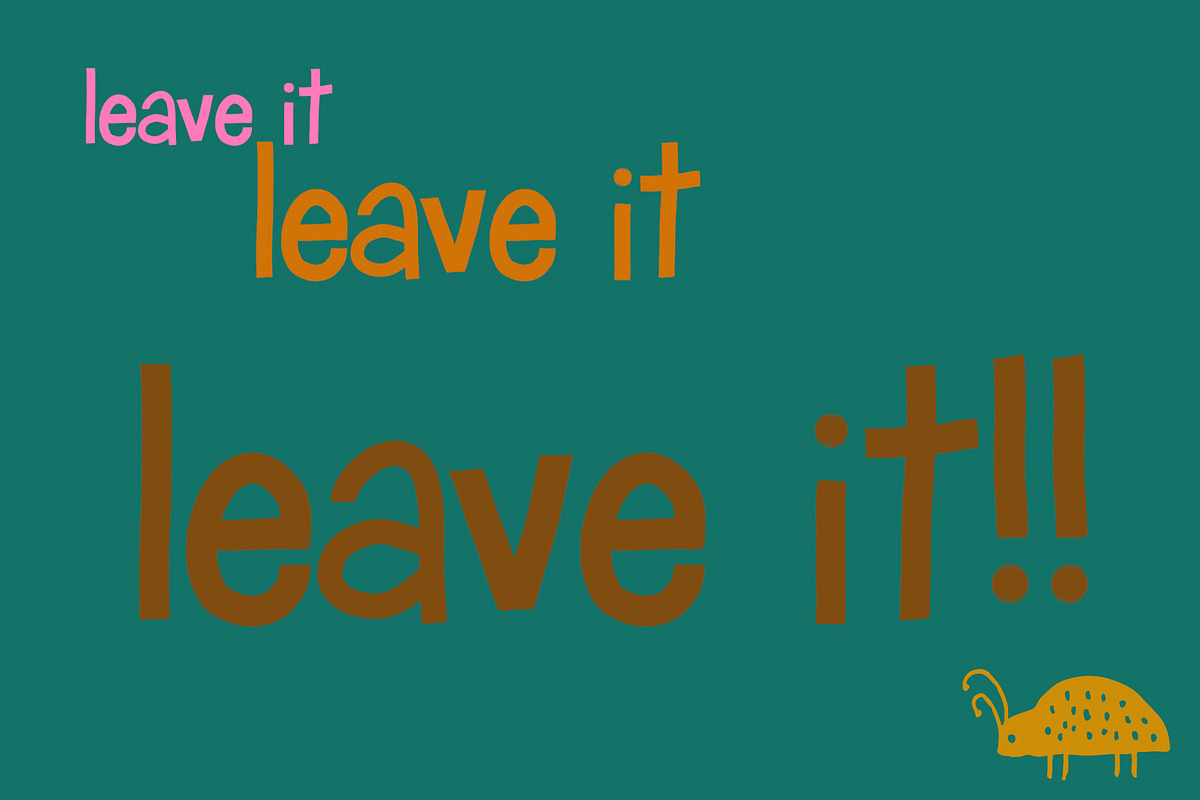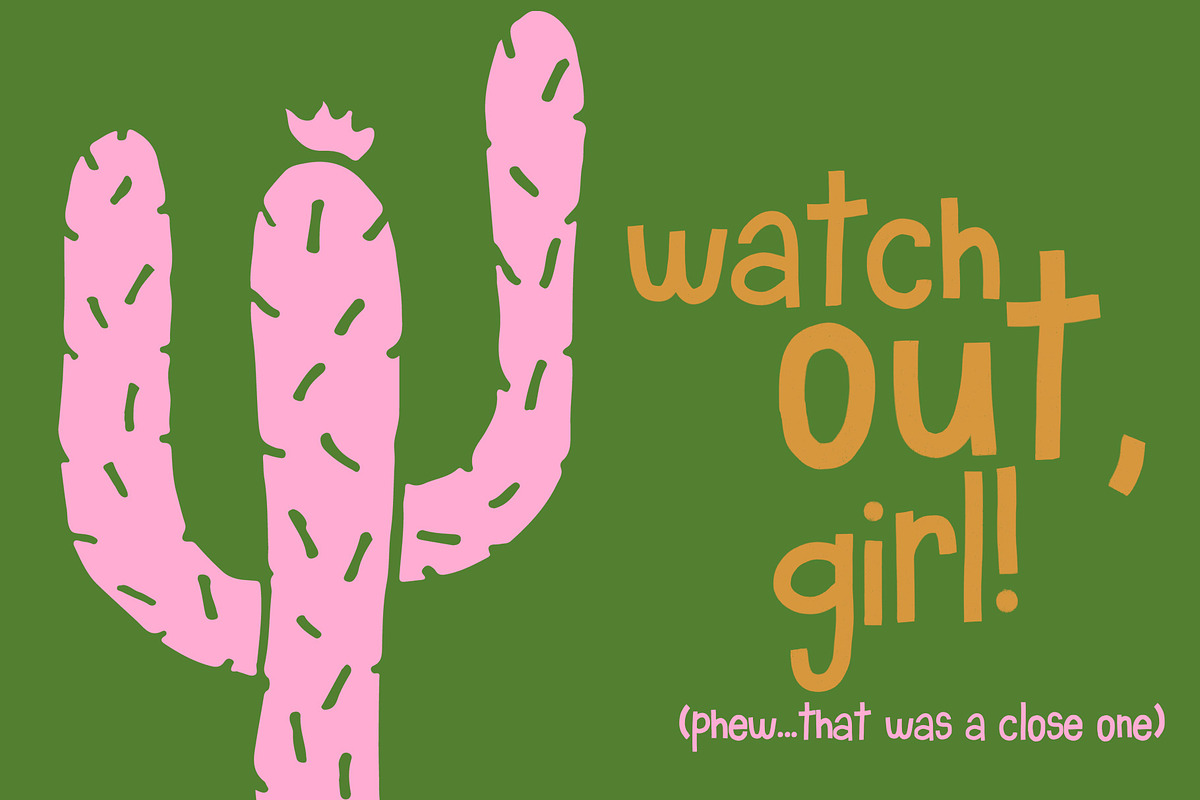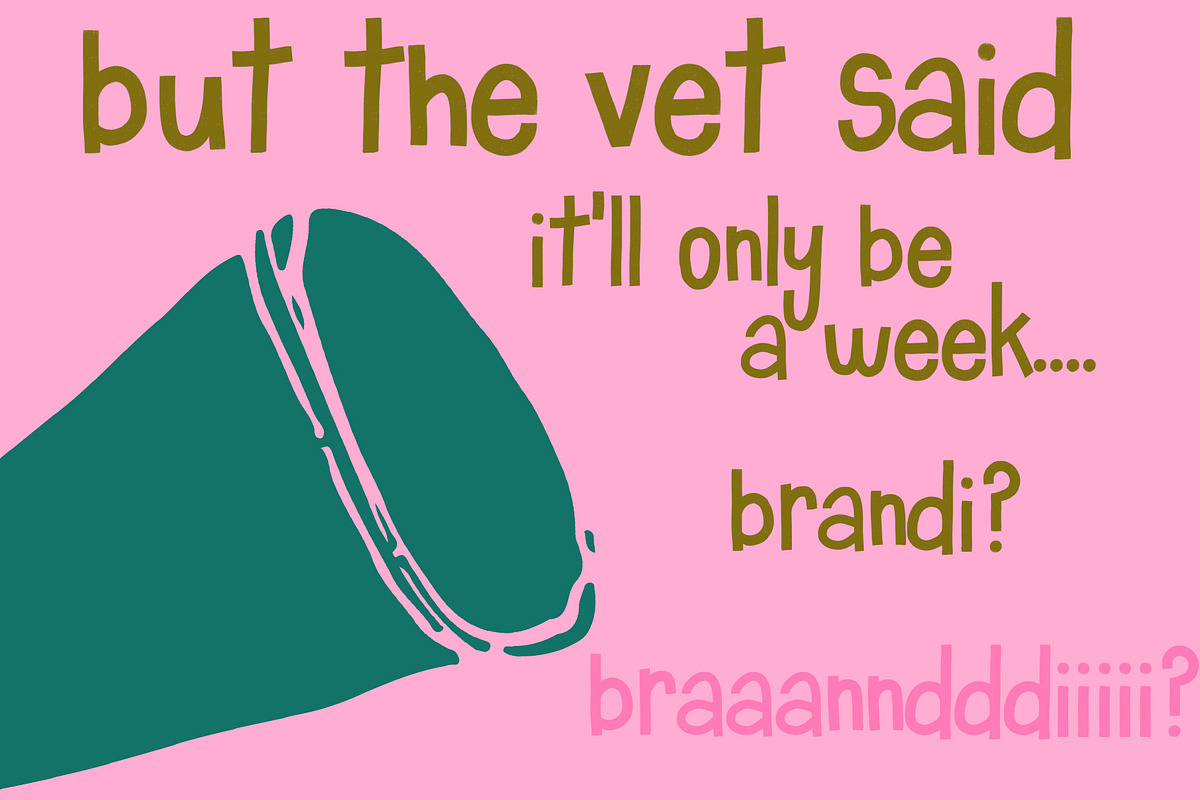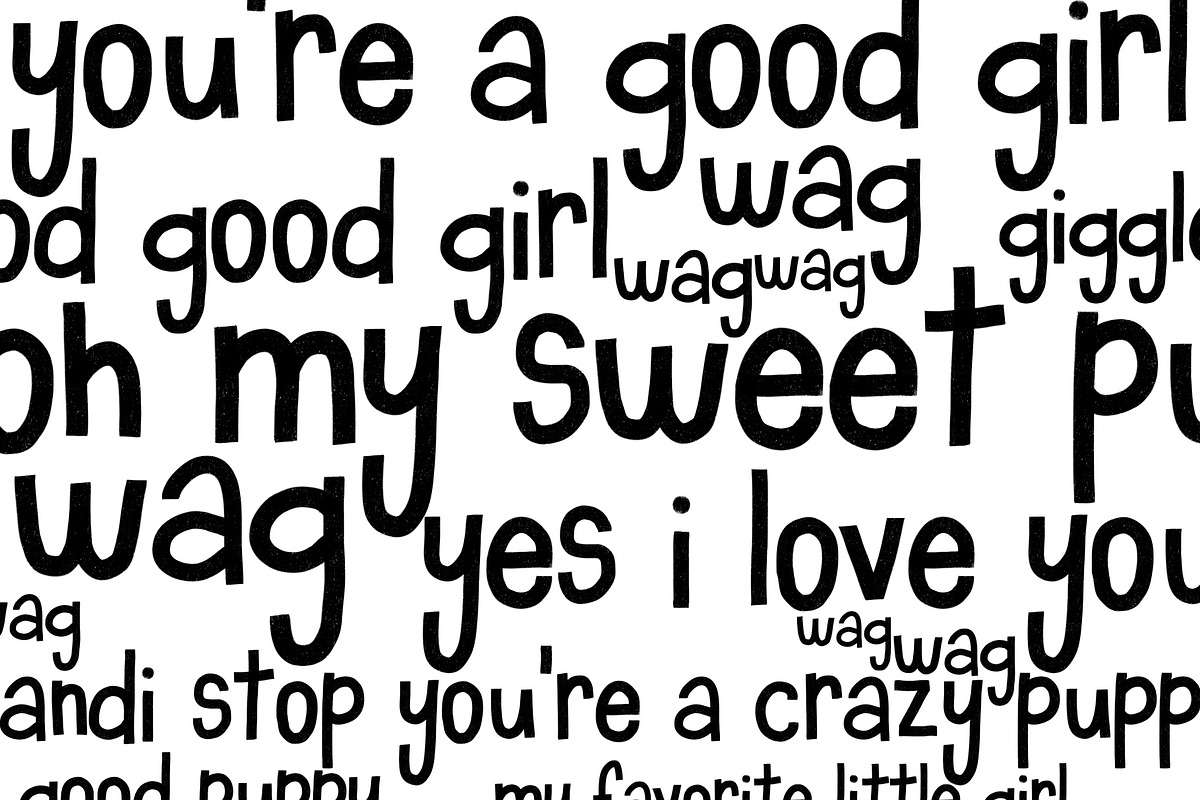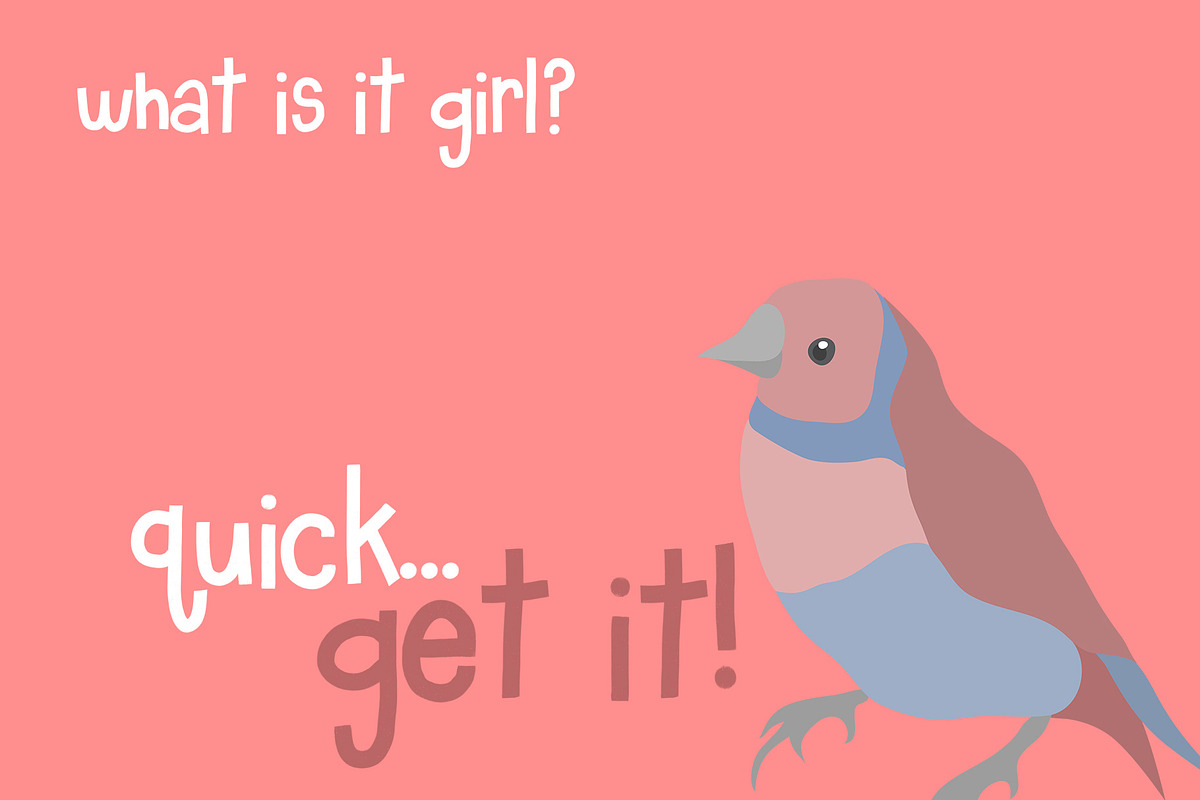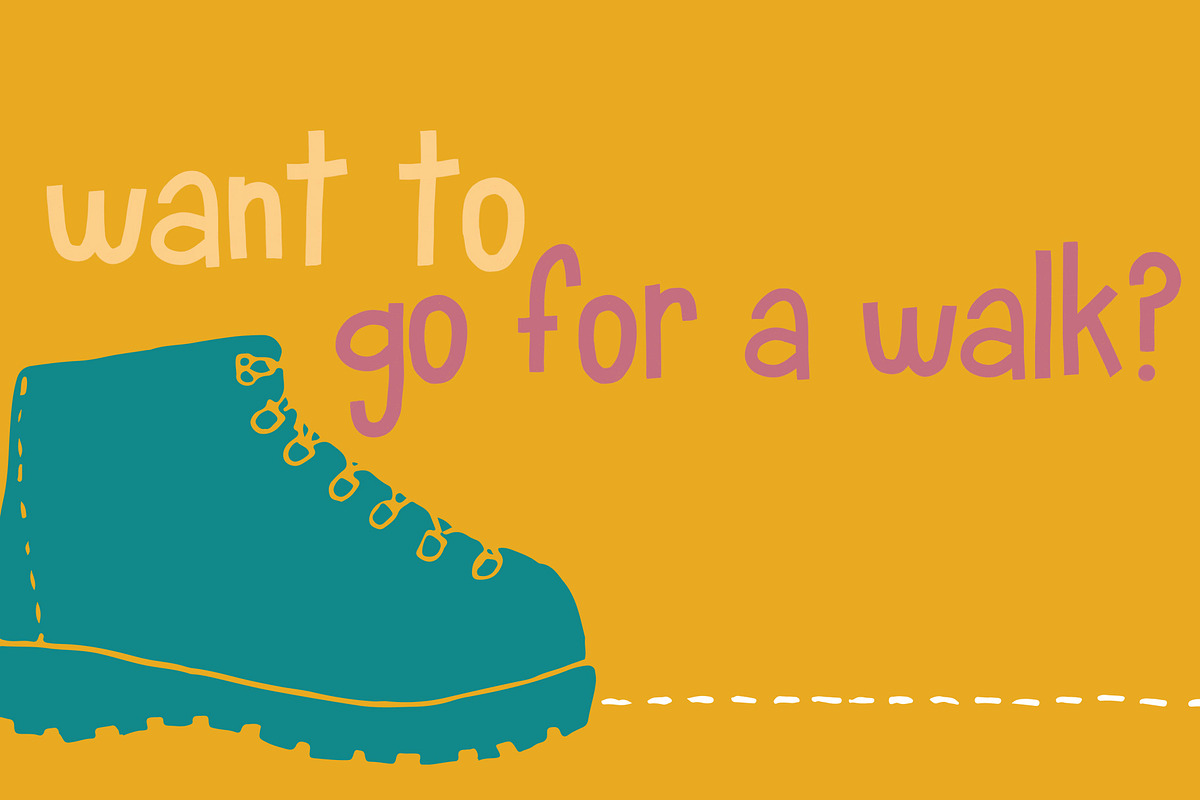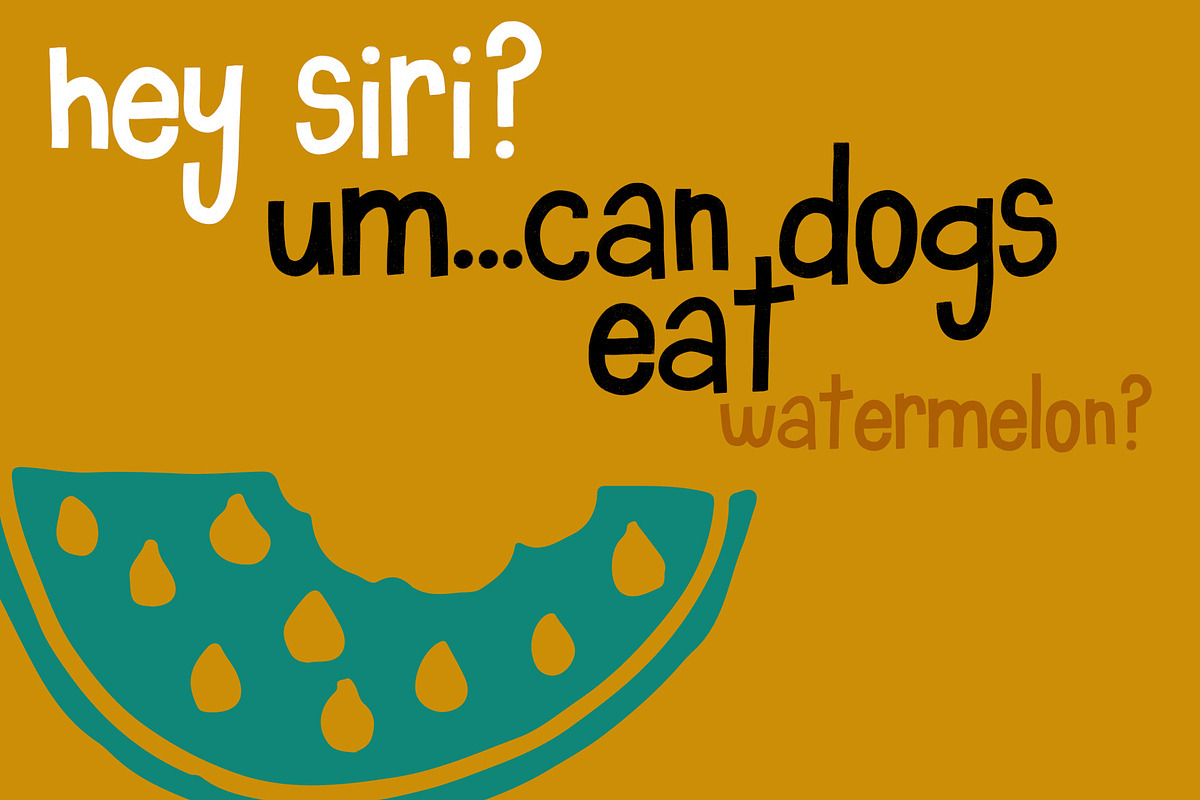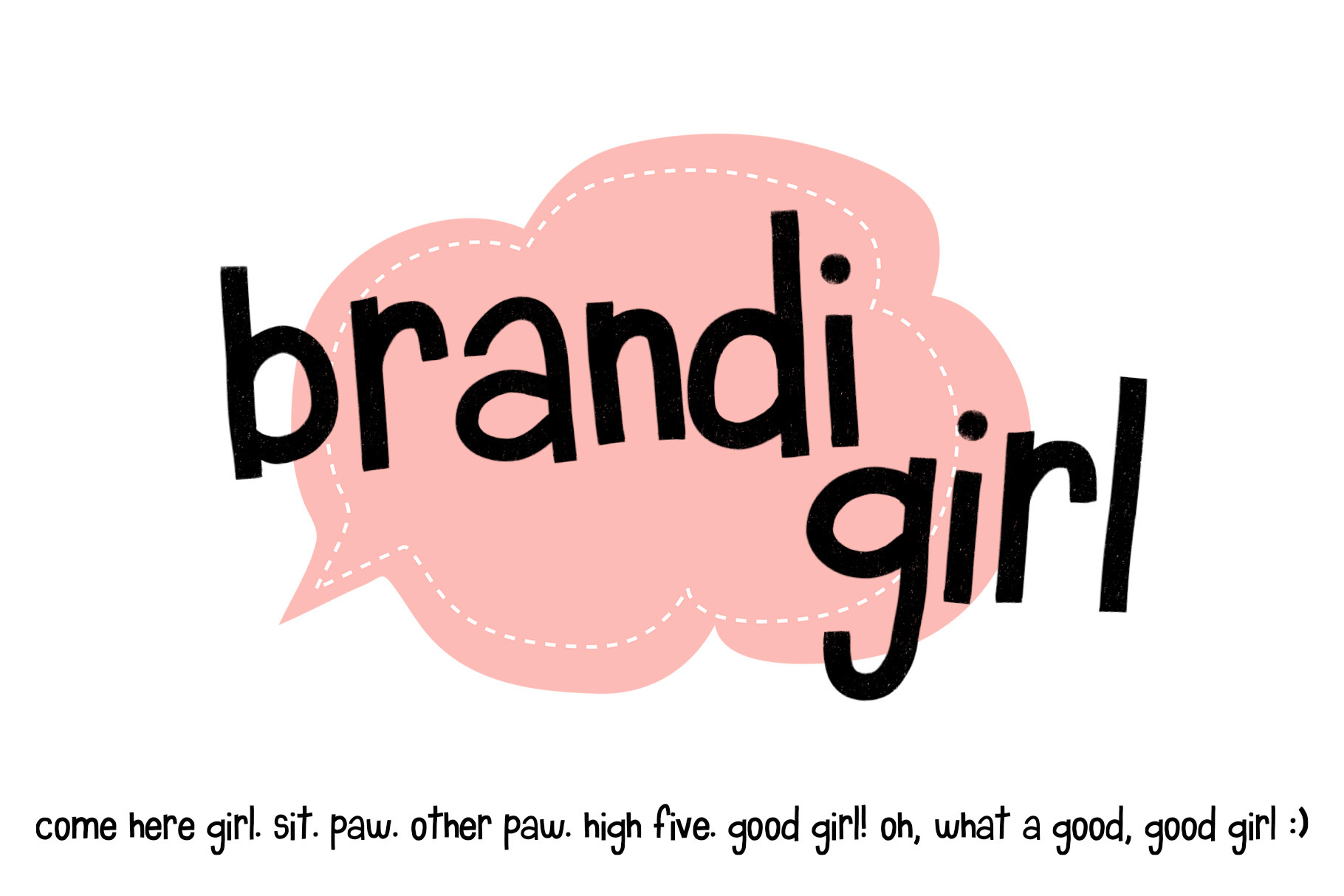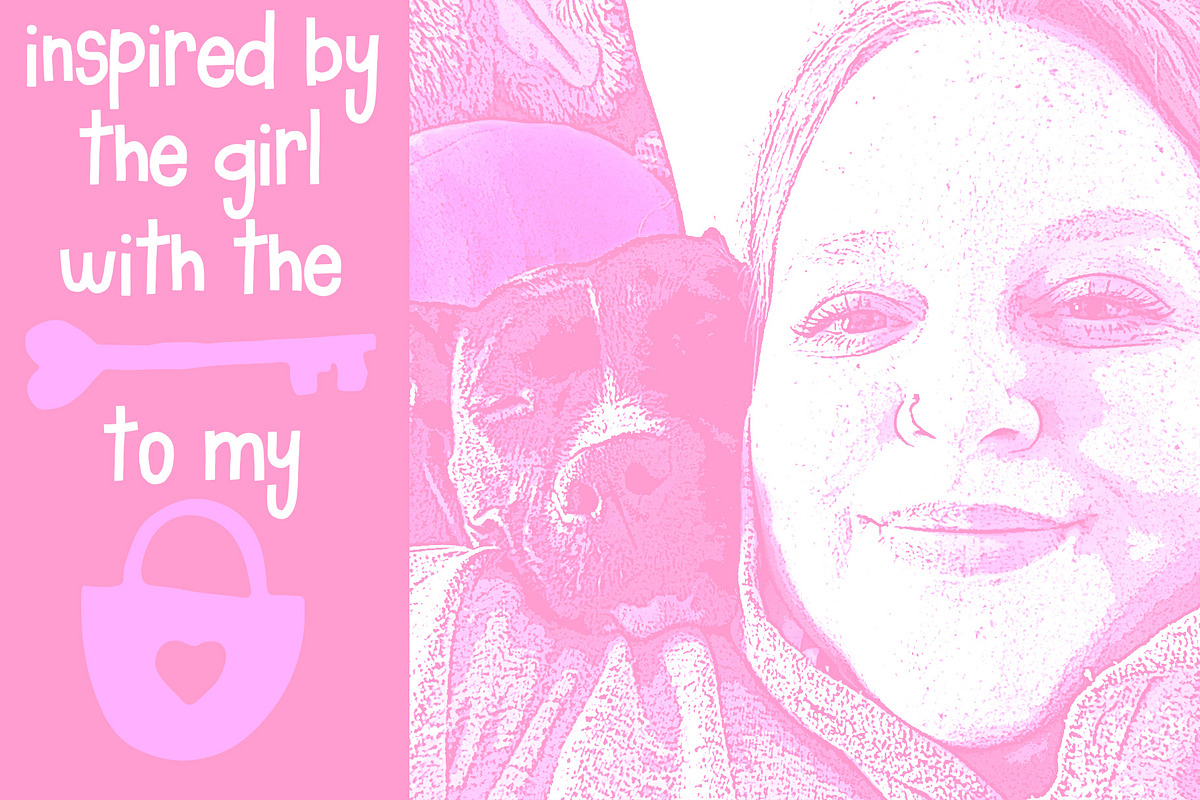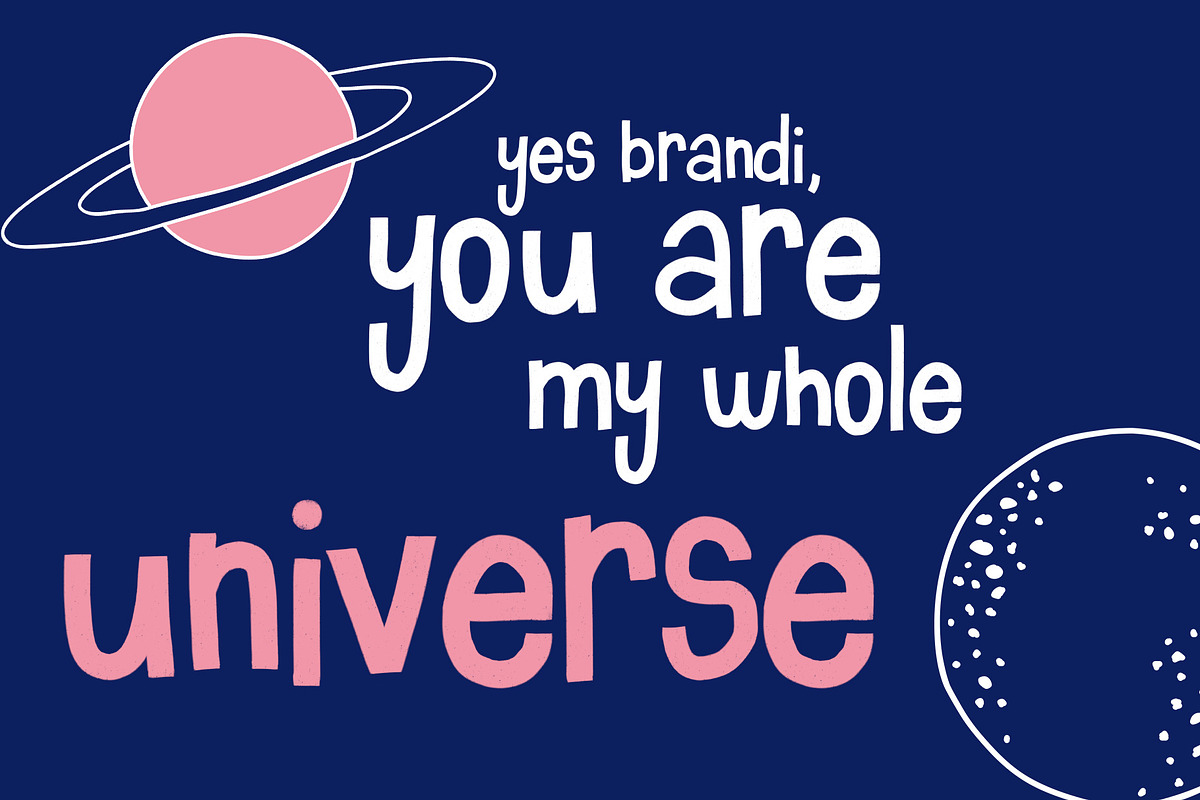
Brandi Girl Cute Handwritten Font
Introducing Brandi Girl, a cute, quirky, playful font inspired by...my dog!
I really hope you like working with this lowercase-only font, because it was fun to create and I really love it!